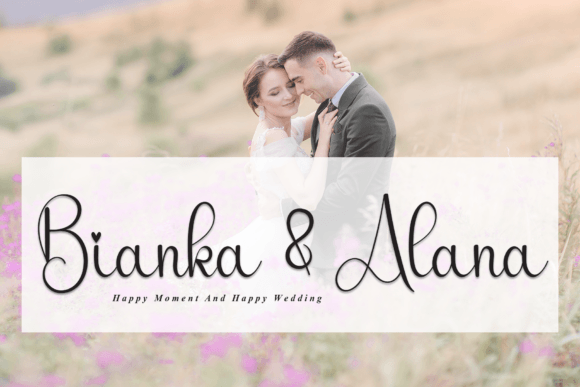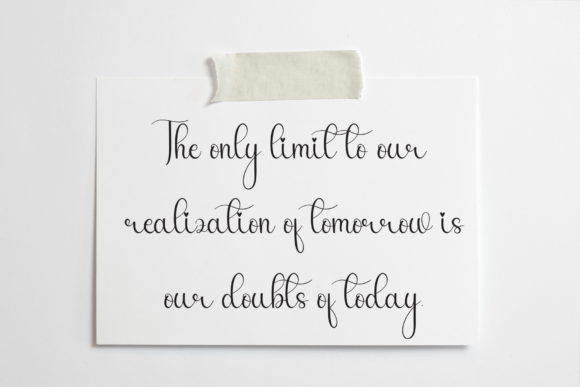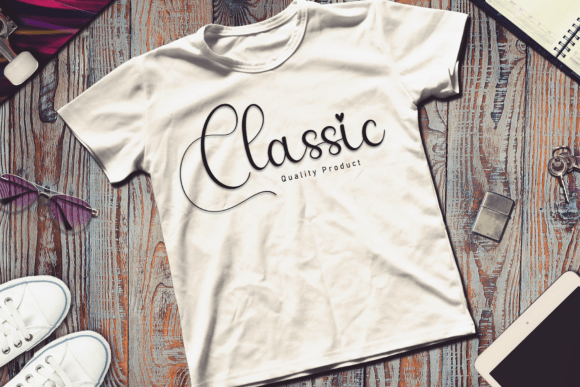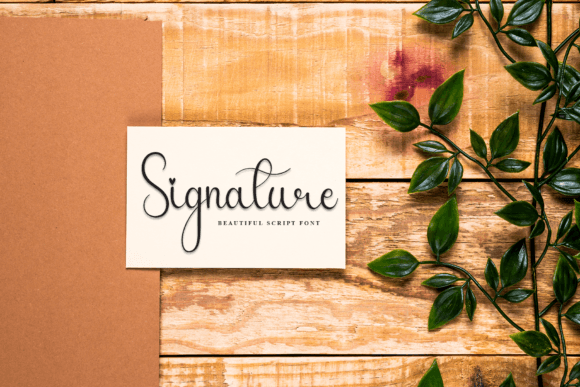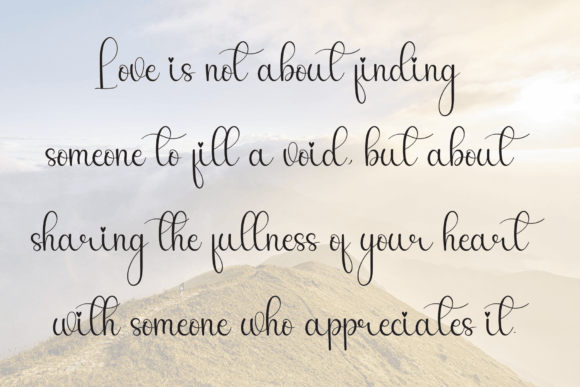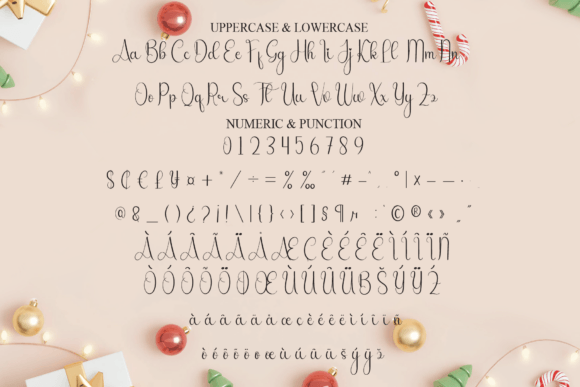
Introducing Christmas Font: A Delightful and Endearing Handcrafted Display Font
Are you looking for a font that can add a touch of sweetness and friendliness to your design projects? Look no further than Christmas Font, a charming and handcrafted display font that is perfect for crafting romantic wedding invitations, heartfelt cards, and more. With its whimsical appeal and playful vibe, this unique typeface is sure to bring a splash of fresh joy to any design project.
What Makes Christmas Font So Special?
Christmas Font is a one-of-a-kind font that is designed to bring a sense of warmth and personality to your designs. Its handcrafted nature gives it a unique and organic feel that is hard to find in digital fonts. The font is brimming with whimsical appeal, making it perfect for designers and crafters who want to add a touch of magic to their projects.
One of the standout features of Christmas Font is its ability to evoke emotions. The font’s charming and endearing nature makes it perfect for crafting romantic wedding invitations, heartfelt cards, and other designs that require a personal touch. Whether you’re a designer looking to create something special for your clients or a crafter looking to add a personal touch to your projects, Christmas Font is the perfect choice.
Christmas Font is a versatile font that can be used for a wide range of design projects. Here are just a few ideas to get you started:
- Romantic wedding invitations: Add a touch of elegance and sophistication to your wedding invitations with Christmas Font.
- Heartfelt cards: Create personalized cards for special occasions like birthdays, anniversaries, and holidays with Christmas Font.
- Party invitations: Add a playful and fun touch to your party invitations with Christmas Font.
- Branding and packaging: Use Christmas Font to add a personal touch to your branding and packaging designs.
Why Choose Christmas Font?
There are many fonts on the market that claim to be unique and special, but Christmas Font truly stands out from the crowd. Here are just a few reasons why:
- Handcrafted with love: Christmas Font is a handcrafted font that is designed to bring a sense of warmth and personality to your designs.
- Whimsical appeal: The font’s whimsical appeal makes it perfect for designers and crafters who want to add a touch of magic to their projects.
- Playful vibe: Christmas Font has a playful vibe that is sure to bring a splash of fresh joy to any design project.
Tips for Using Christmas Font
Now that you know a little bit more about Christmas Font, here are a few tips for using it in your design projects:
- Use it sparingly: While Christmas Font is a beautiful font, it can be overwhelming if used too much. Use it sparingly to add a touch of elegance and sophistication to your designs.
- Pair it with other fonts: Christmas Font pairs well with a variety of other fonts, so don’t be afraid to experiment with different combinations.
- Experiment with colors: Christmas Font looks great in a variety of colors, so don’t be afraid to experiment with different color combinations.
Christmas Font is a delightful and endearing handcrafted display font that is perfect for designers and crafters who want to add a touch of sweetness and friendliness to their design projects. With its whimsical appeal and playful vibe, this unique typeface is sure to bring a splash of fresh joy to any design project. Whether you’re creating romantic wedding invitations, heartfelt cards, or other designs that require a personal touch, Christmas Font is the perfect choice.